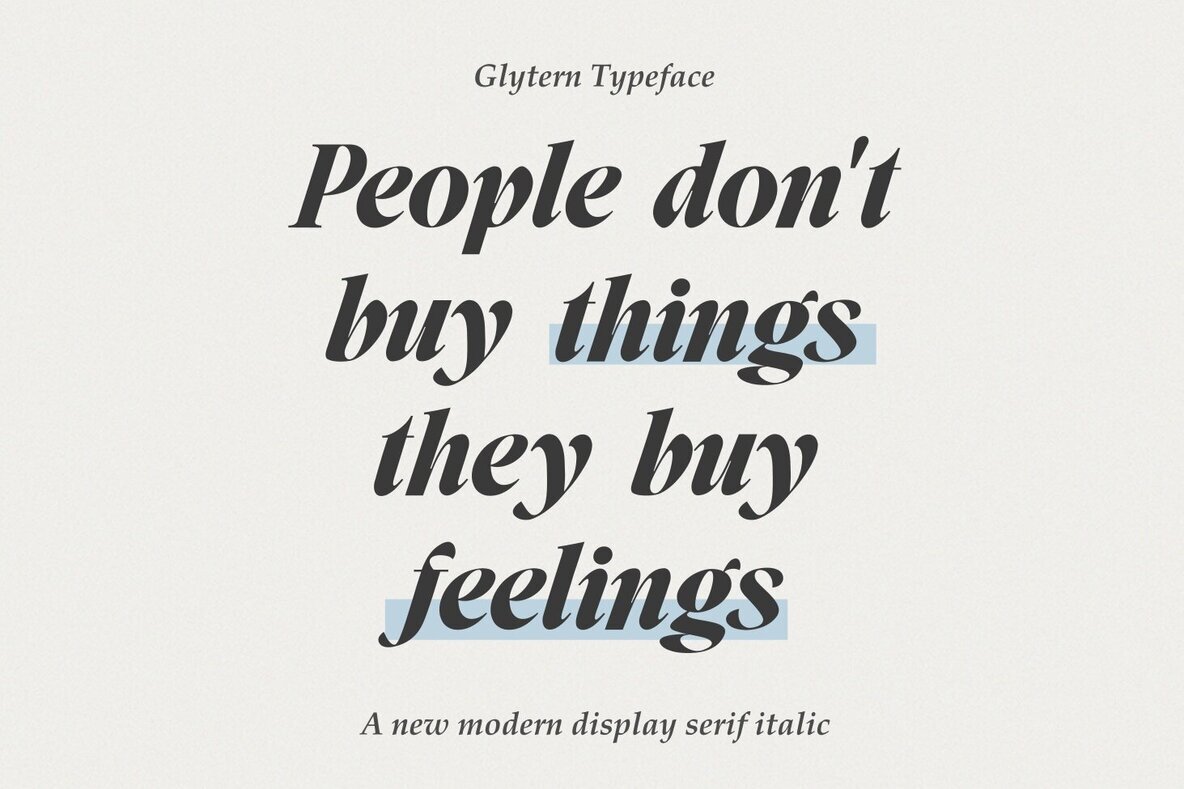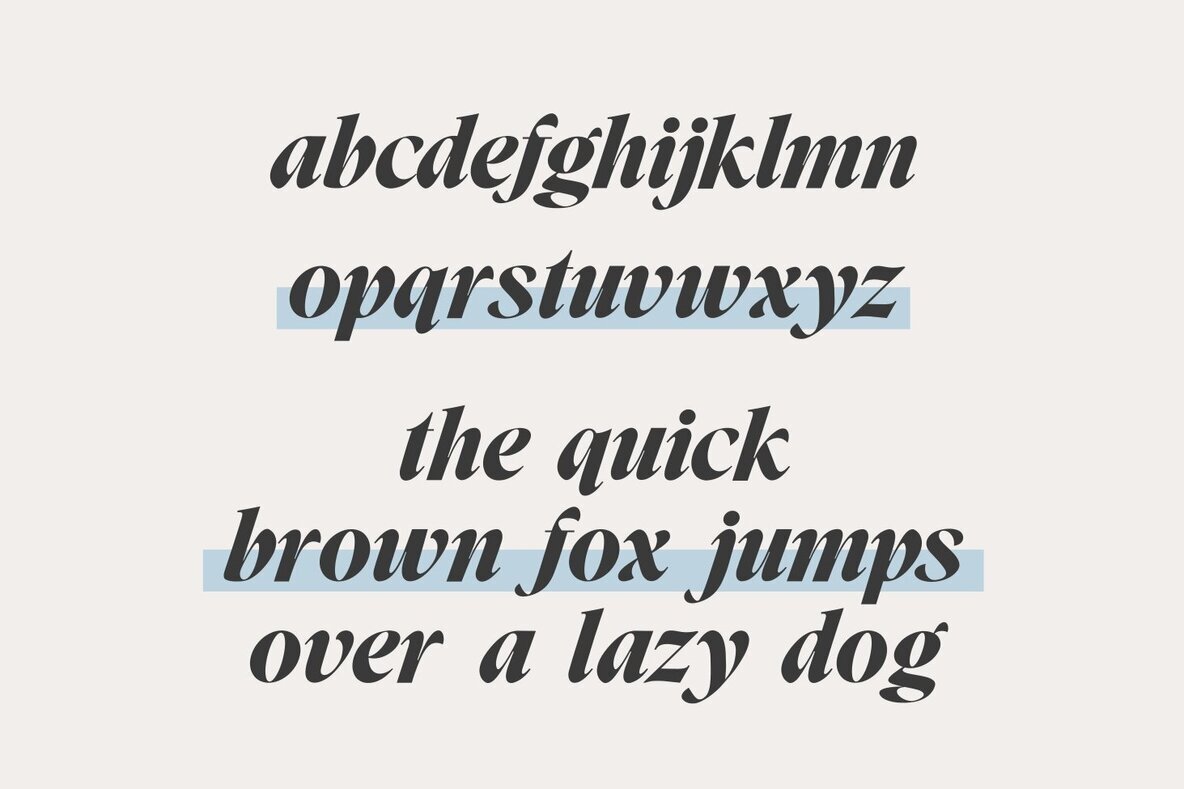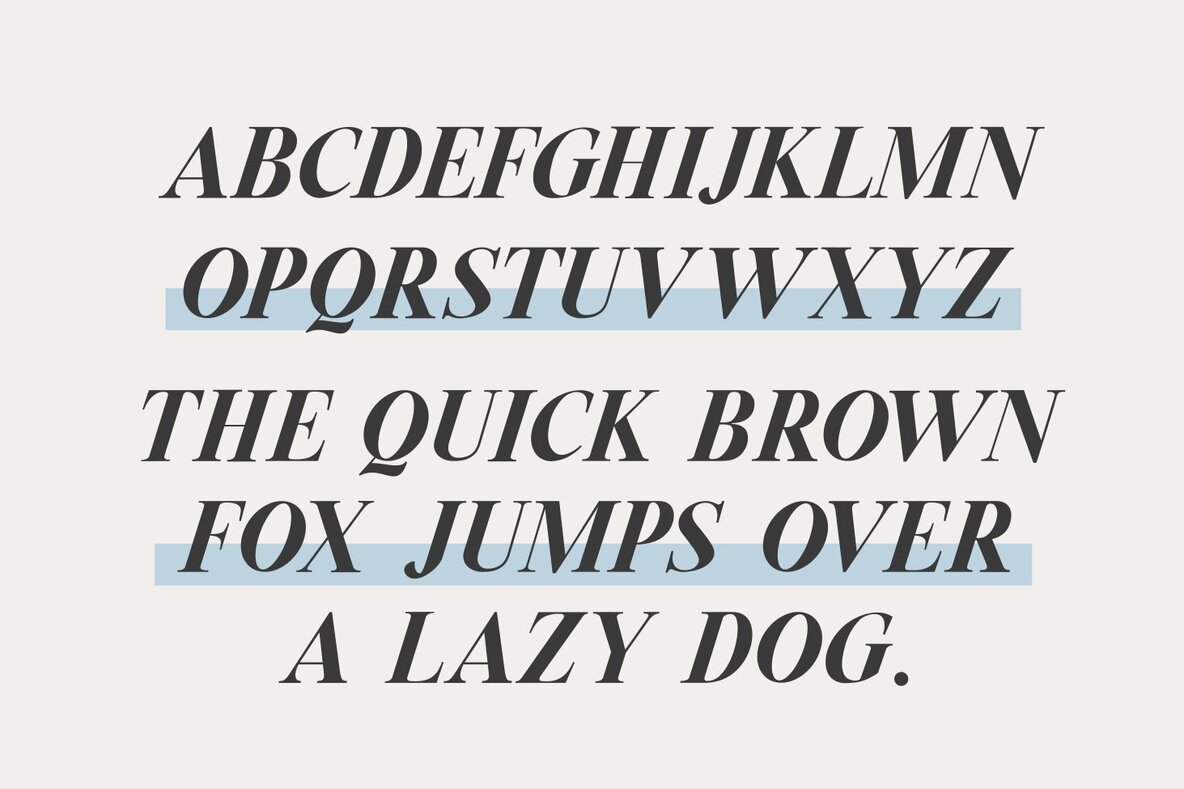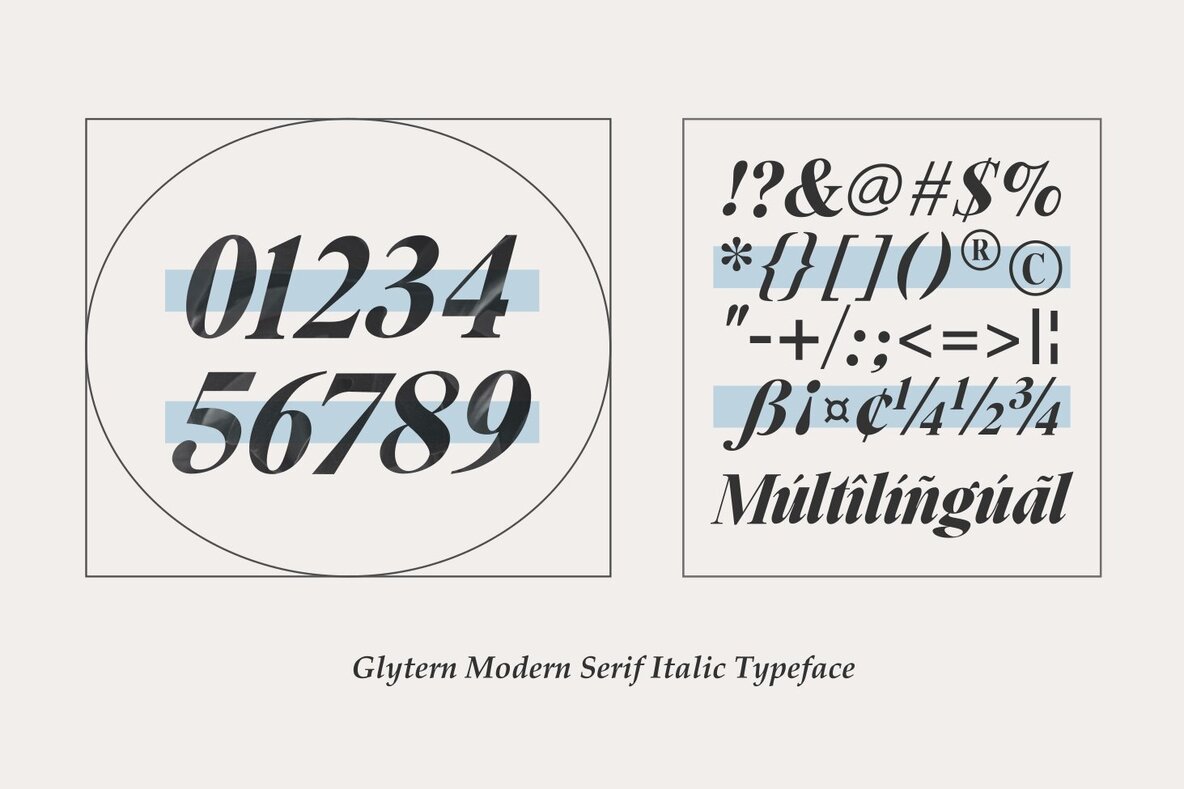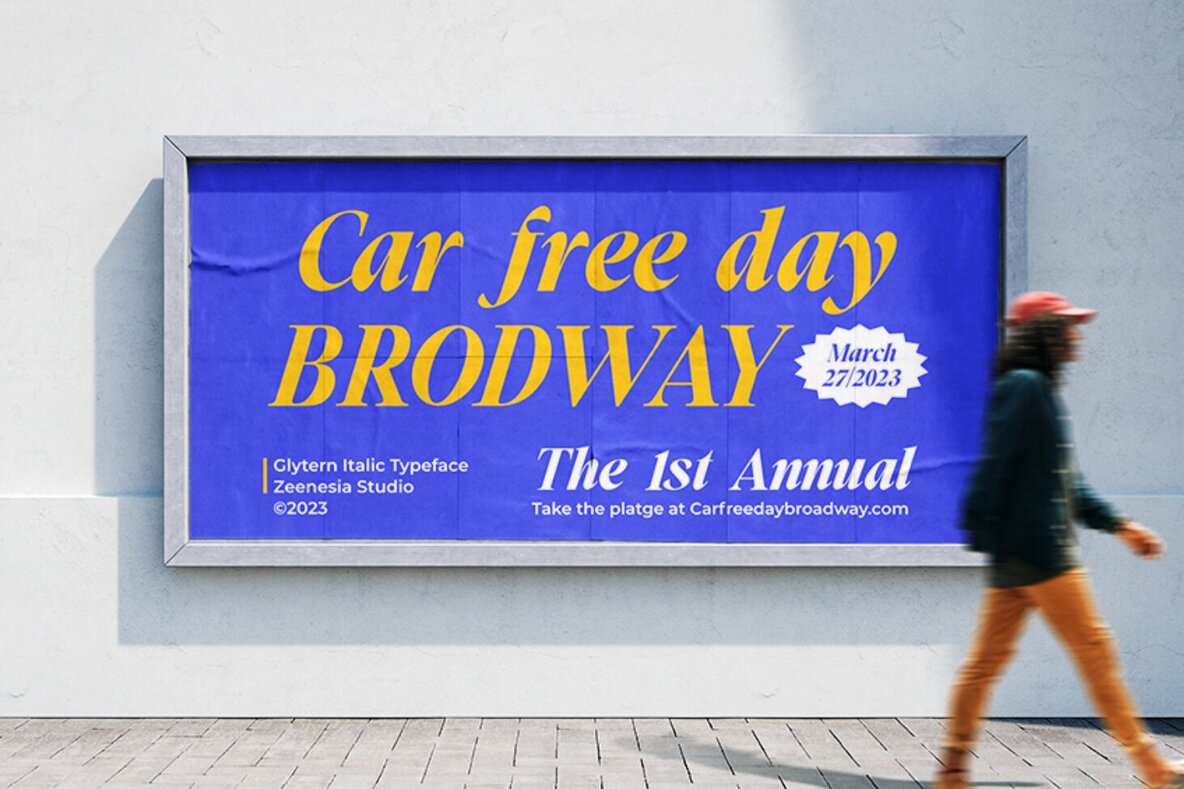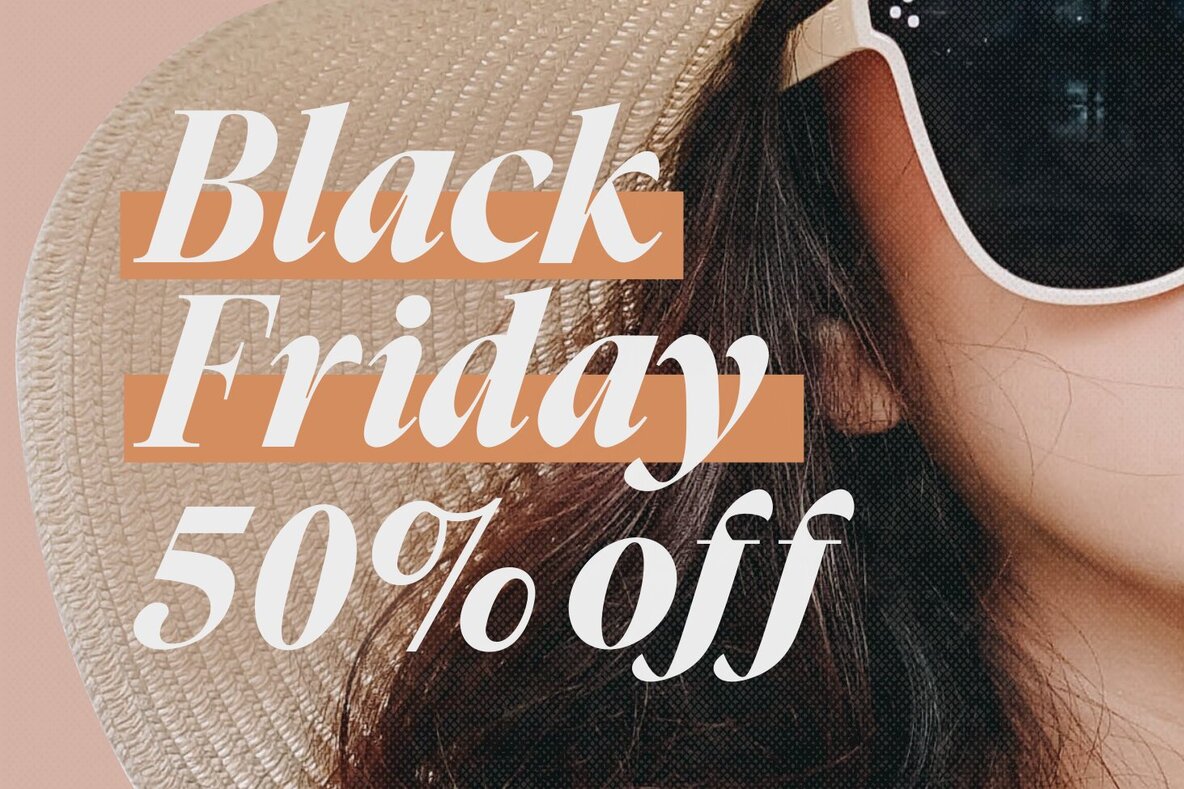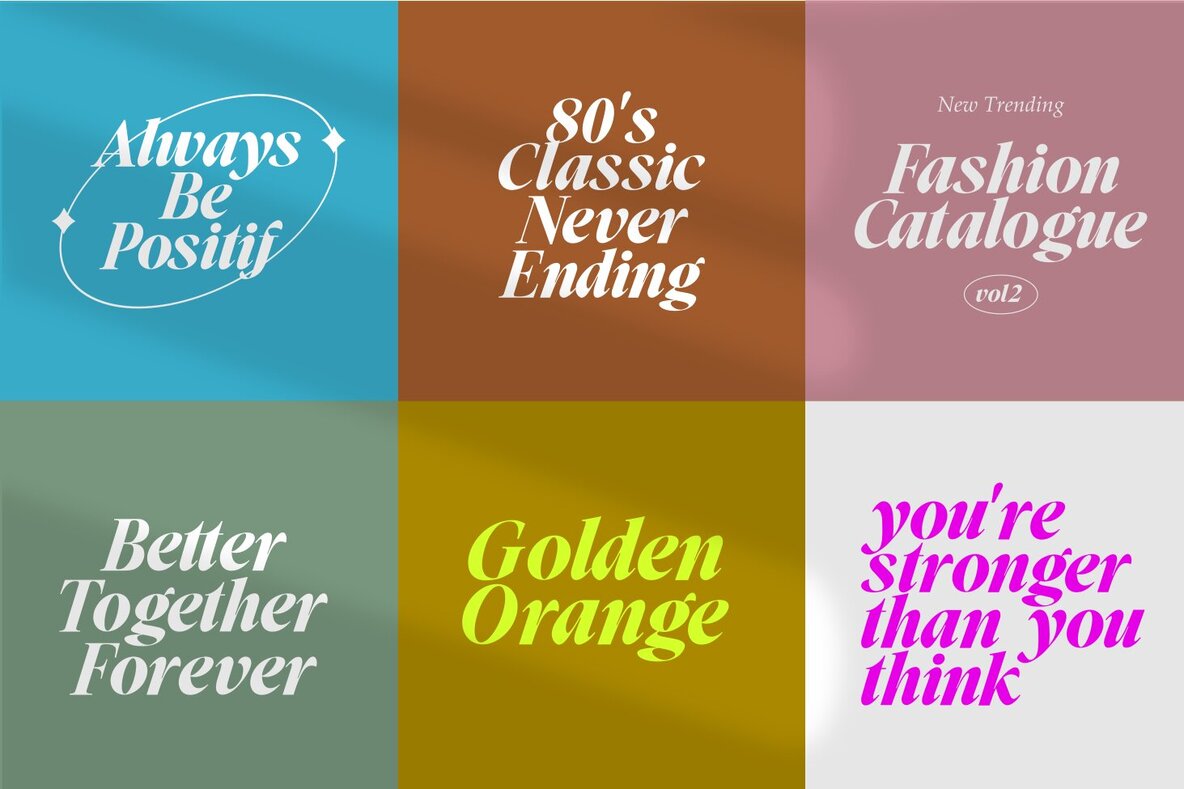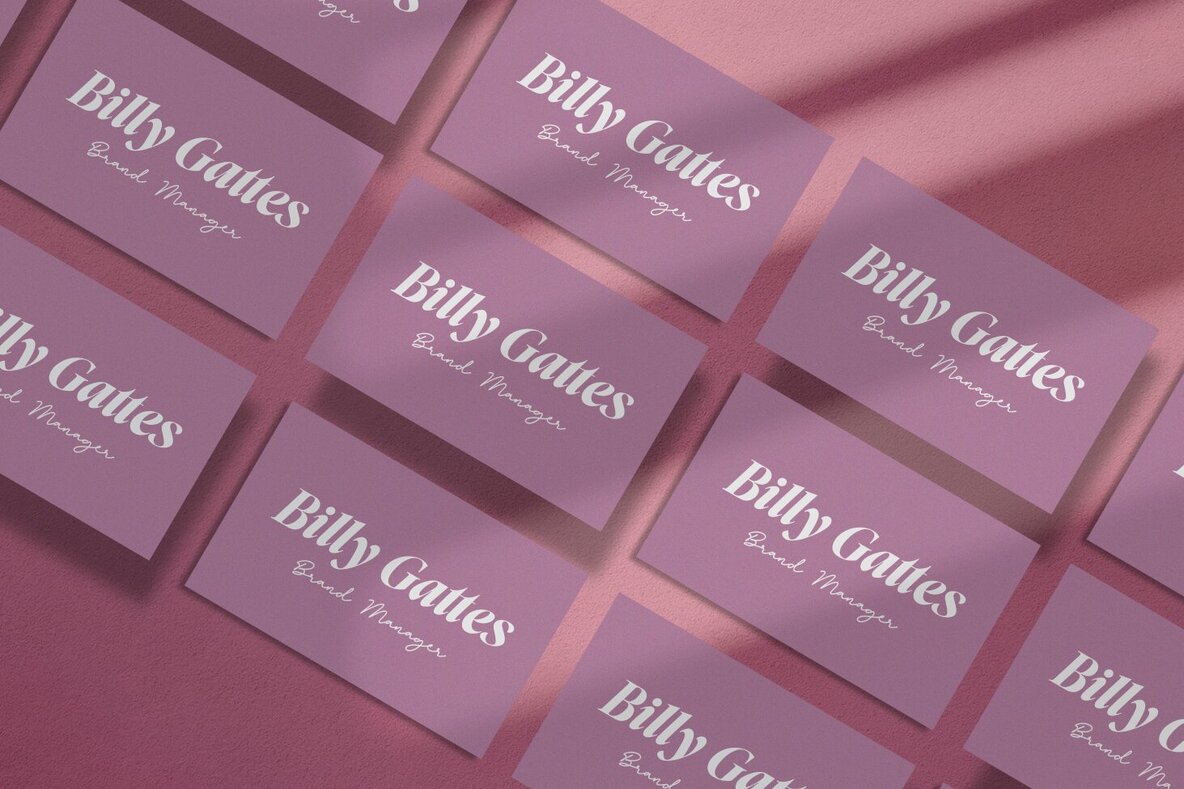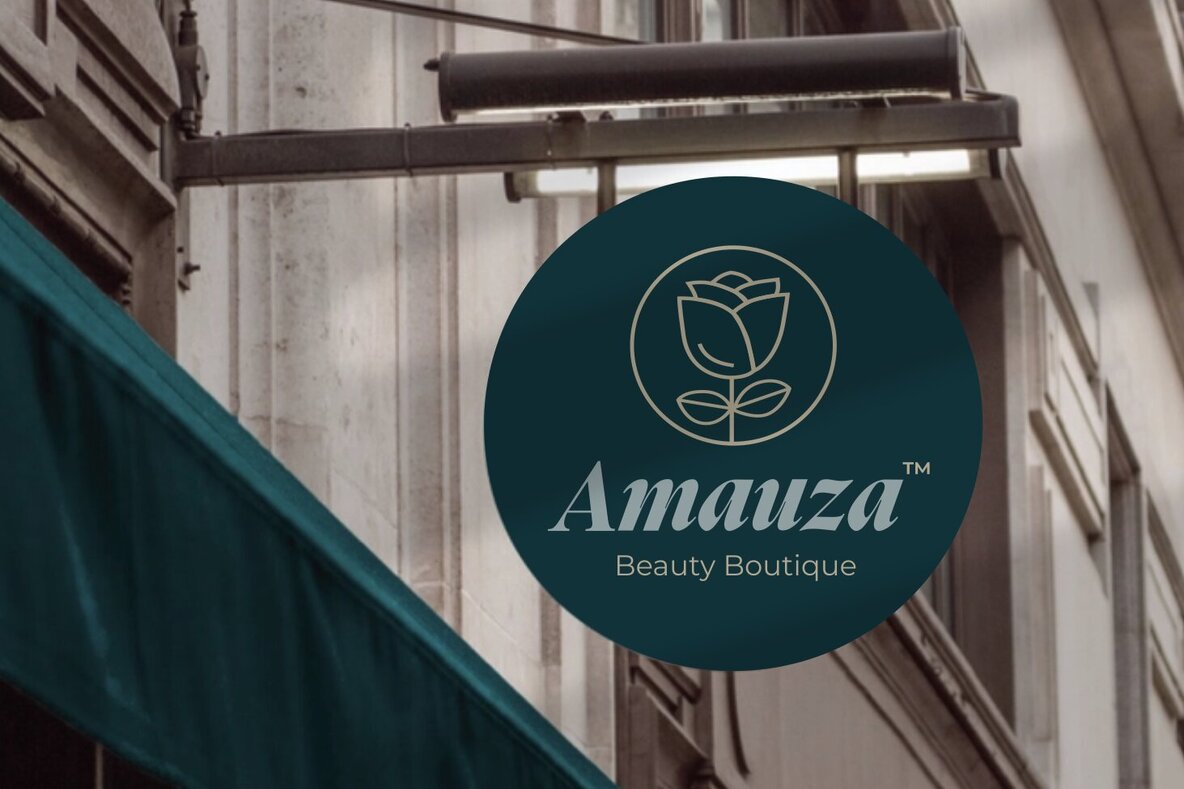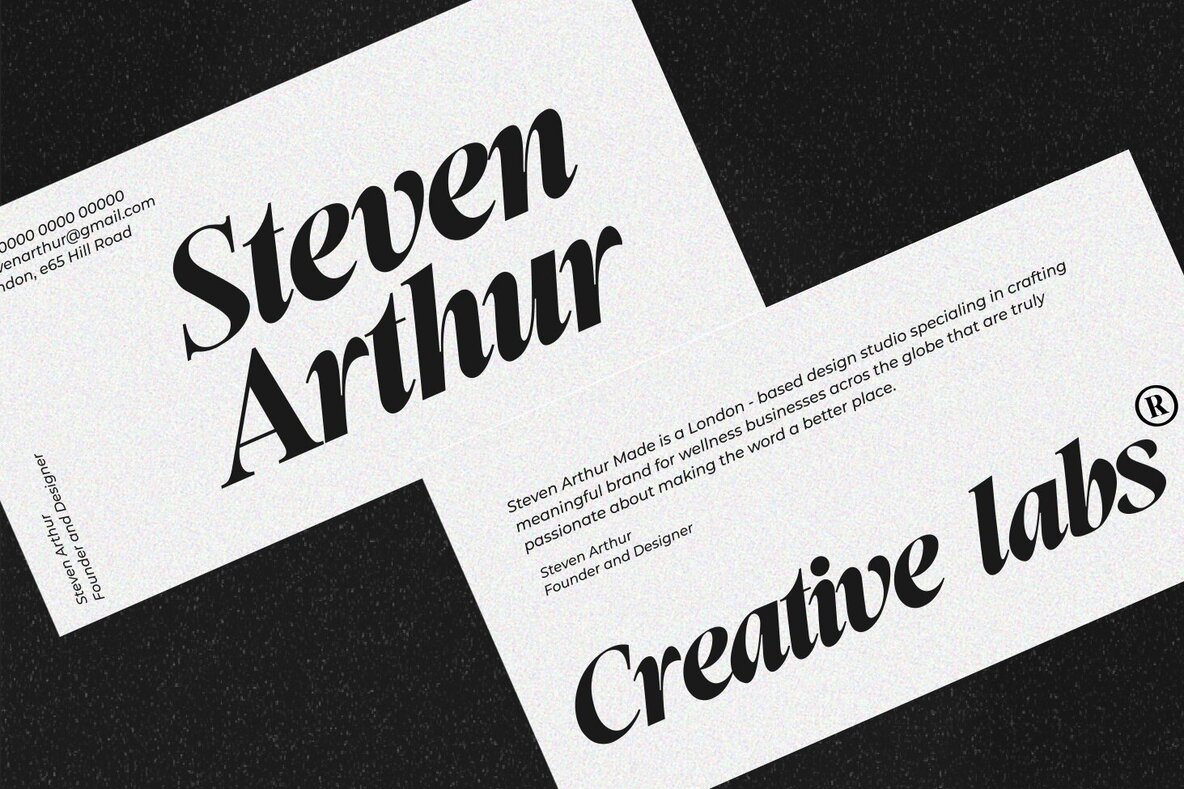
Glytern Font
Glytern Regular
Glytern is a modern italic serif font. It’s a very versatile font that works great in large. Glytern is the perfect font for editorial projects, logo design, web font, branding, product packaging, magazine, or simply as a stylish text overlay to any background image.